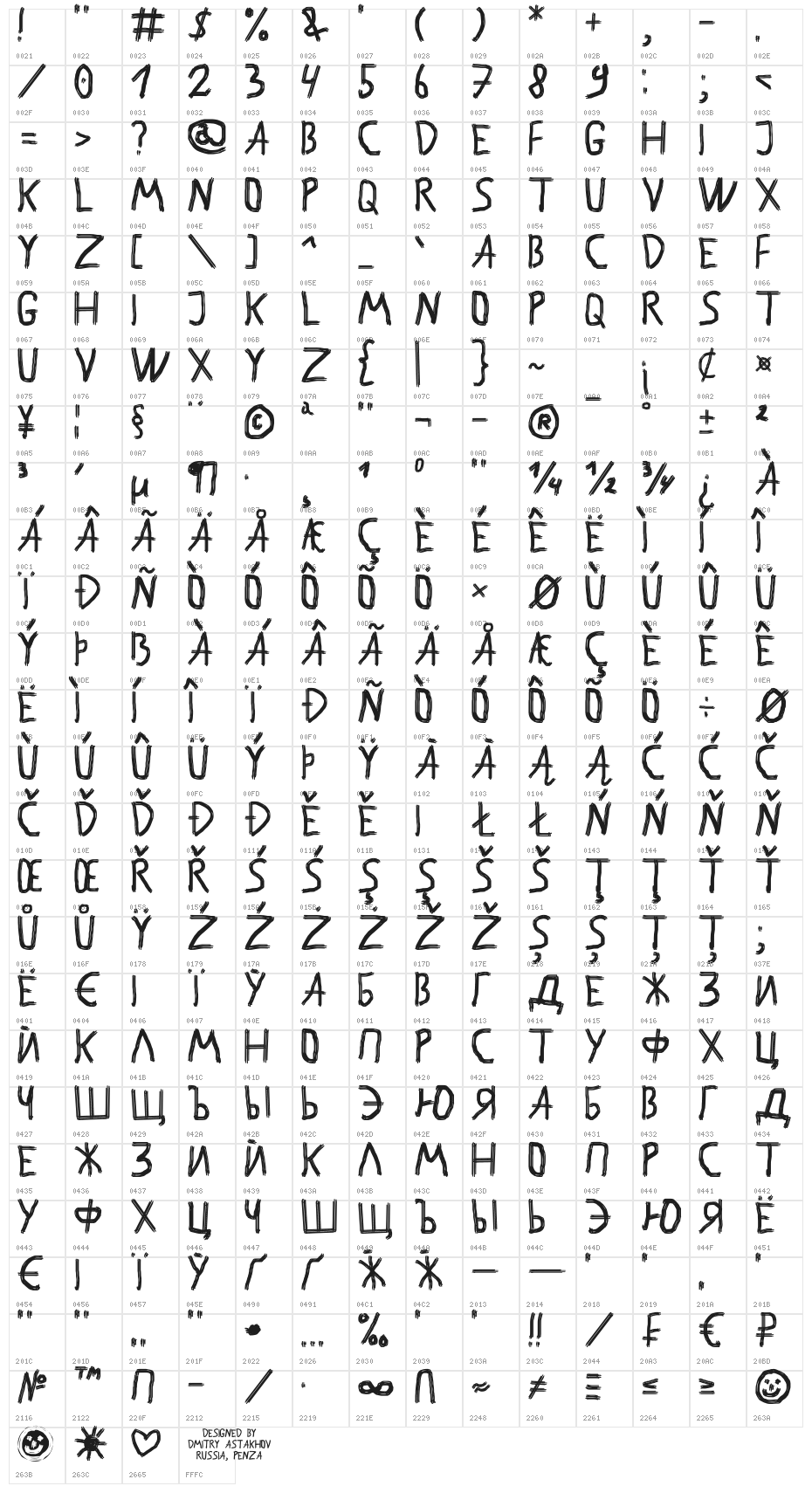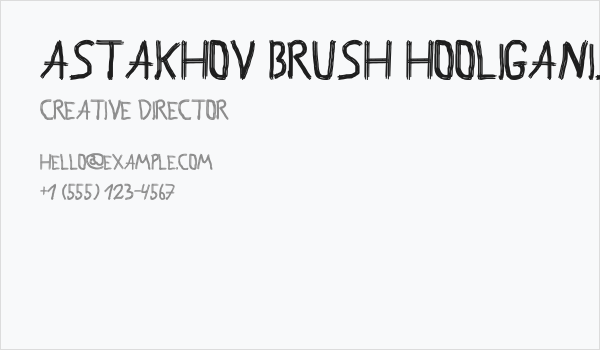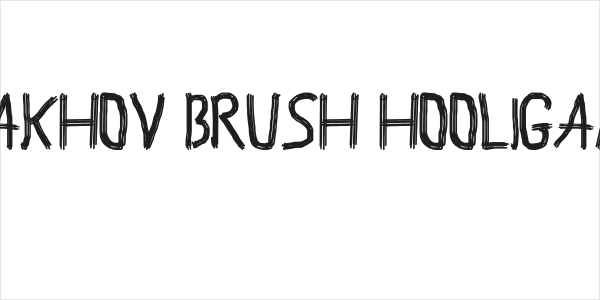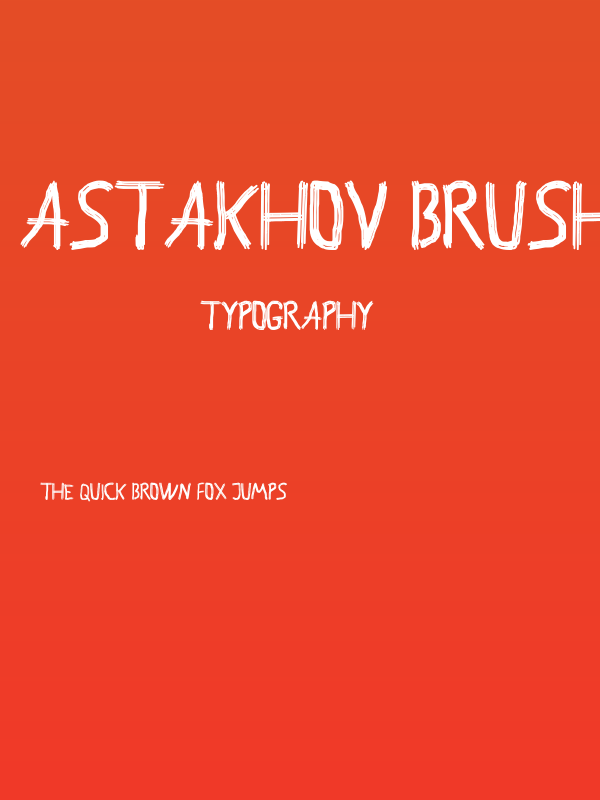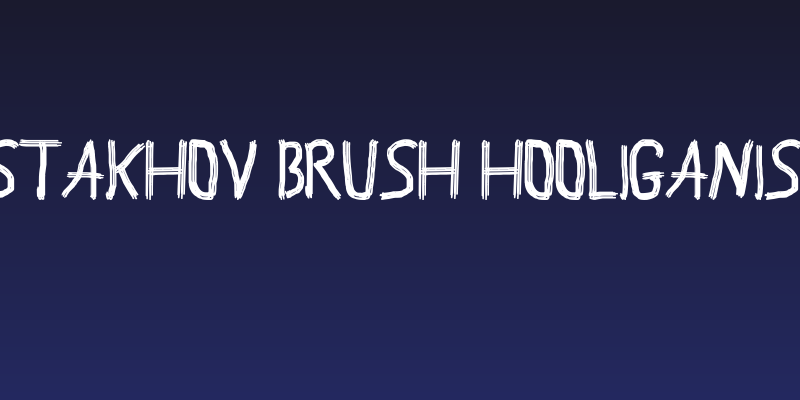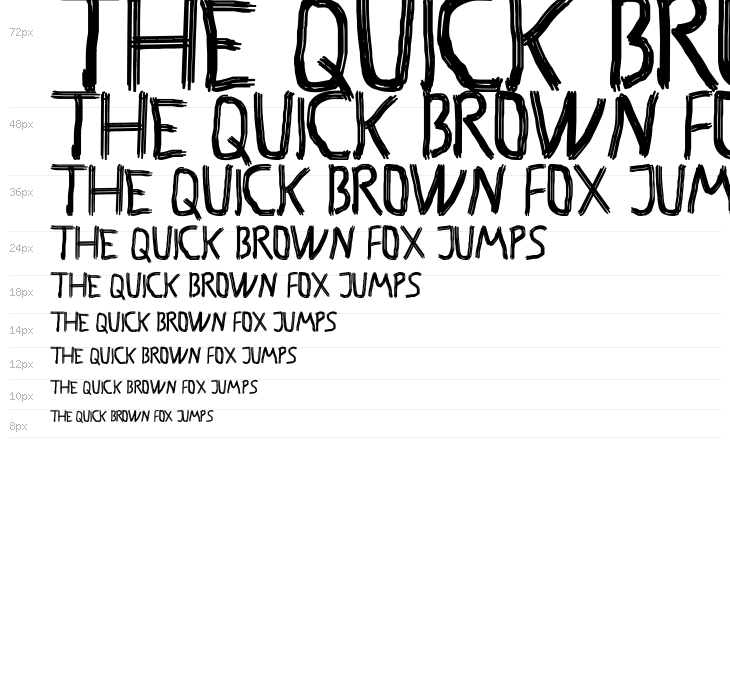
Astakhov Brush Hooliganism Font
Astakhov Brush Hooliganism Description
This font exudes a rebellious and energetic vibe, characterized by its bold, brush-like strokes that give it a raw and dynamic appearance. The letters are irregular and slightly distorted, adding to the font's edgy and unconventional style. The uppercase and lowercase letters maintain a consistent brushstroke texture, creating a cohesive look throughout. Numbers and special characters follow the same design principles, ensuring uniformity across all elements. The font's unique aesthetic makes it stand out, perfect for projects that require a touch of creativity and boldness.
| Proposed Projects | Ideal for street art designs, music album covers, posters, and edgy branding projects. |